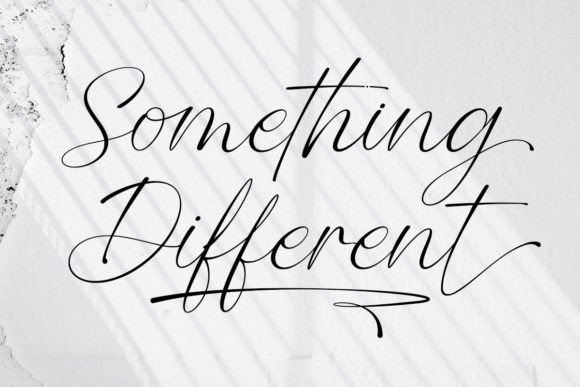
Prepare to be captivated by Something Different, an exquisite script font family that will transform your creative projects into breathtaking masterpieces. Experience the elegance and sophistication of this flowing handwritten font, meticulously crafted by Al Mughni Studio3. Immerse yourself in the world of visual allure as you unleash the full potential of Something Different.
With its graceful curves and impeccable charm, Something Different is the epitome of a timeless and distinctive style. Elevate your designs to new heights, whether you're a seasoned professional or just starting your creative journey. This versatile script is perfect for adding a personal touch to logos, branding, invitations, wedding stationery, social media graphics, and myriad other projects.
Imagine your words dancing across the page, adorned with the beauty and grace of Something Different. Its elegant strokes will add a touch of sophistication to your creations, capturing the attention of your audience and leaving a lasting impression.
But Something Different is more than just a font; it's an experience. It's an invitation to explore the realm of creativity, to push the boundaries of your imagination, and to create designs that will inspire and captivate.
Don't settle for ordinary fonts. Choose Something Different and watch as your projects come to life with a vibrancy and charm that will make them truly unforgettable.
Unlock the power of Something Different today and embark on a creative journey that will leave you breathless.